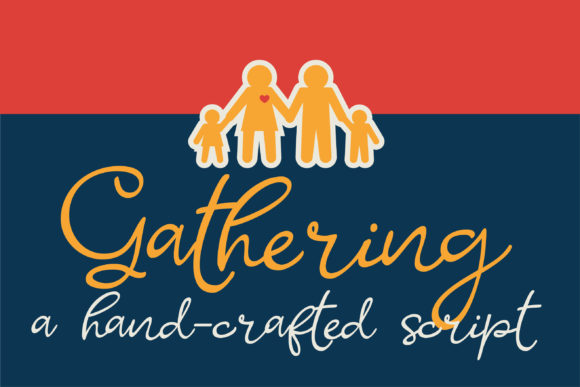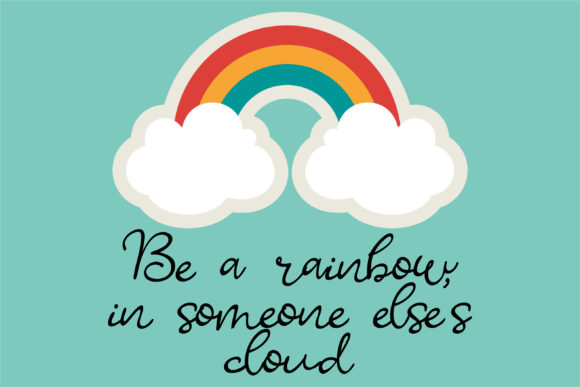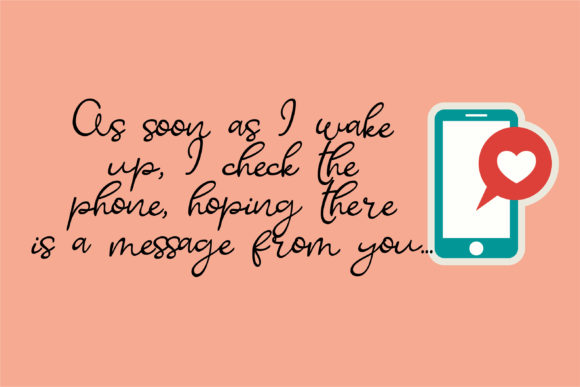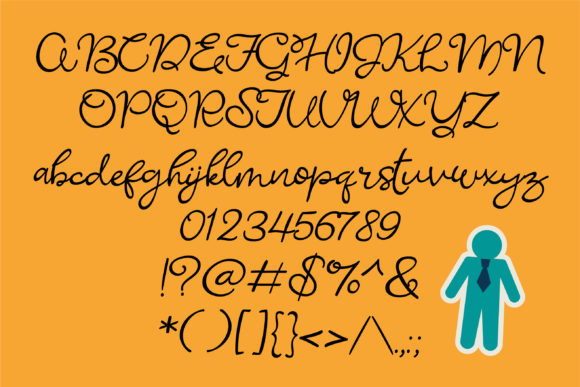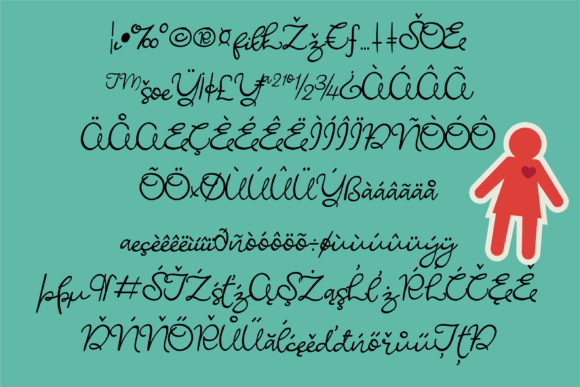
Gathering Font
About Gathering Font
This hand-crafted script is designed to bring a casual and authentic feel to your projects, making it an ideal choice for infusing a homemade touch. Its unique charm lies in the handwritten style that exudes warmth and approachability, creating a welcoming atmosphere in your designs.
The casual feel of this script makes it a versatile addition to a variety of projects, allowing you to add a genuine and down-to-earth quality. Whether applied to digital or print materials, it serves as a design element that bridges the gap between the polished and the personal, making it perfect for conveying a sense of authenticity.
This script is well-suited for a range of applications, including greeting cards, invitations, posters, social media graphics, and more. Its hand-crafted nature brings an element of individuality, ensuring that each stroke and curve contributes to a unique and personalized visual language.
In a world where precision and uniformity often dominate, this hand-crafted script stands as a testament to the beauty found in the imperfect and the handmade. It goes beyond being just a font; it’s a design asset that encourages a connection with the audience, inviting them to appreciate the personal touch infused into each character.
In summary, this hand-crafted script with a casual feel is not merely a typographic choice; it’s a deliberate design decision to add a homemade touch to your projects. Its casual charm and genuine aesthetic make it a valuable tool for designers seeking to create relatable and heartfelt visual experiences. Whether you’re aiming for a cozy and homemade vibe in your designs, this script is here to infuse that personal touch into your creative endeavors.